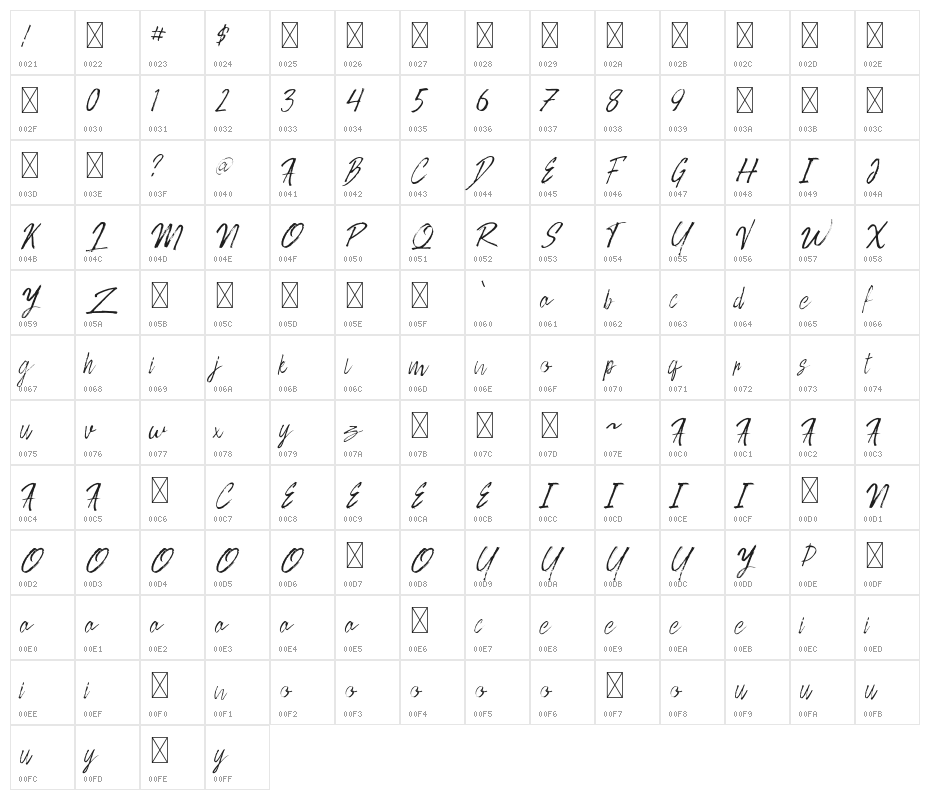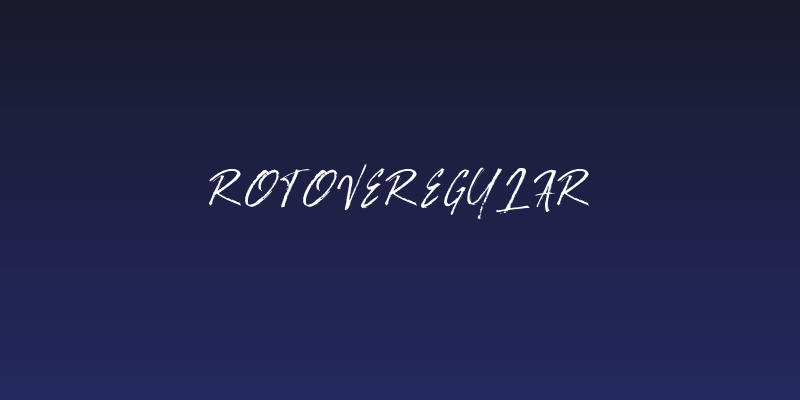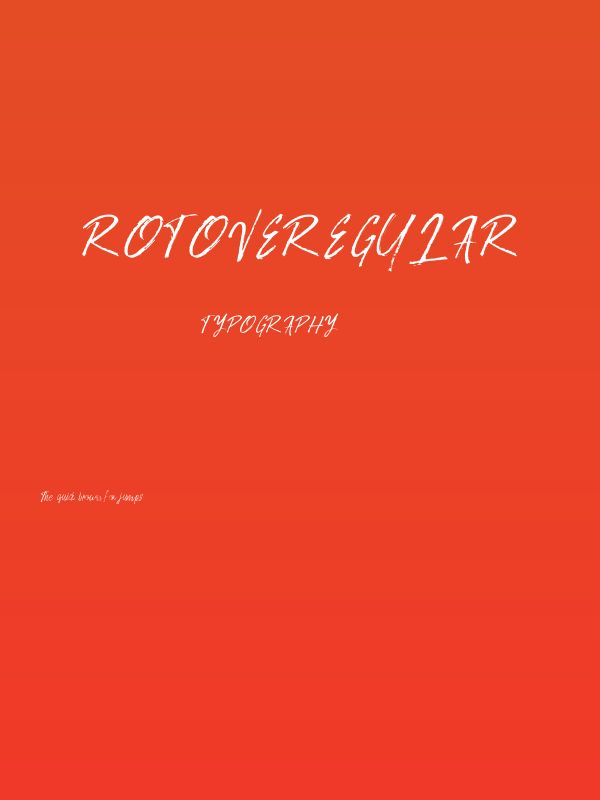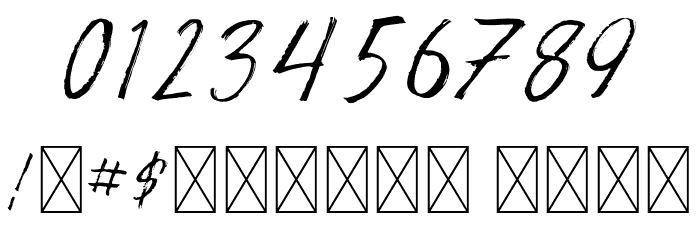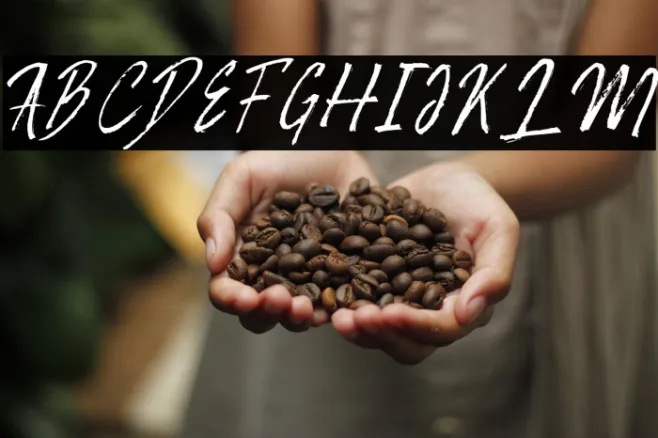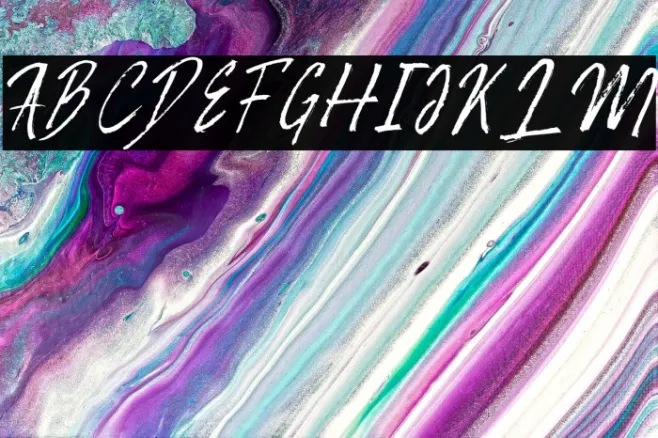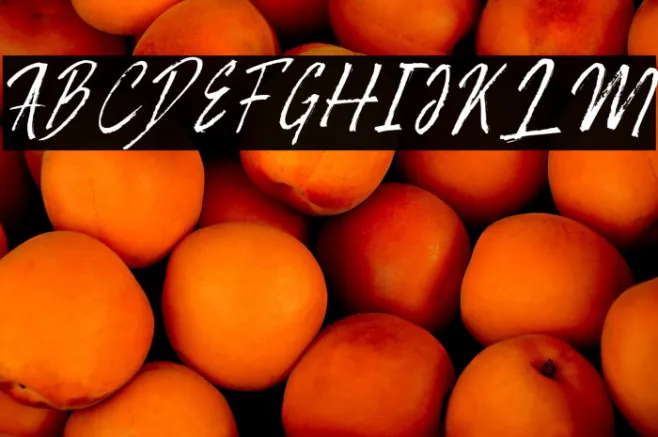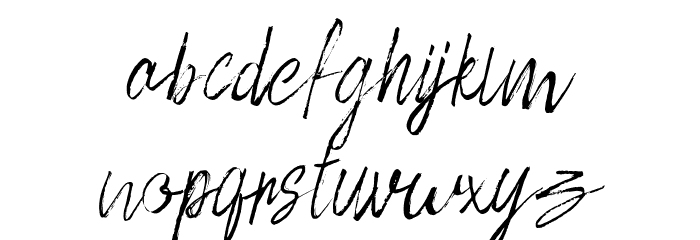
RotoveRegular Font
RotoveRegular Description
This font features a dynamic and expressive script style, characterized by its fluid, handwritten appearance. The strokes are varied in thickness, giving it a lively and energetic feel. The uppercase letters are bold and slightly slanted, while the lowercase letters maintain a consistent flow, enhancing the cursive aesthetic. The numerals are clear and legible, matching the overall style of the letters. Special characters are included, maintaining the same artistic flair. This font is ideal for projects that require a personal touch, such as invitations, greeting cards, or branding materials that aim to convey elegance and creativity.